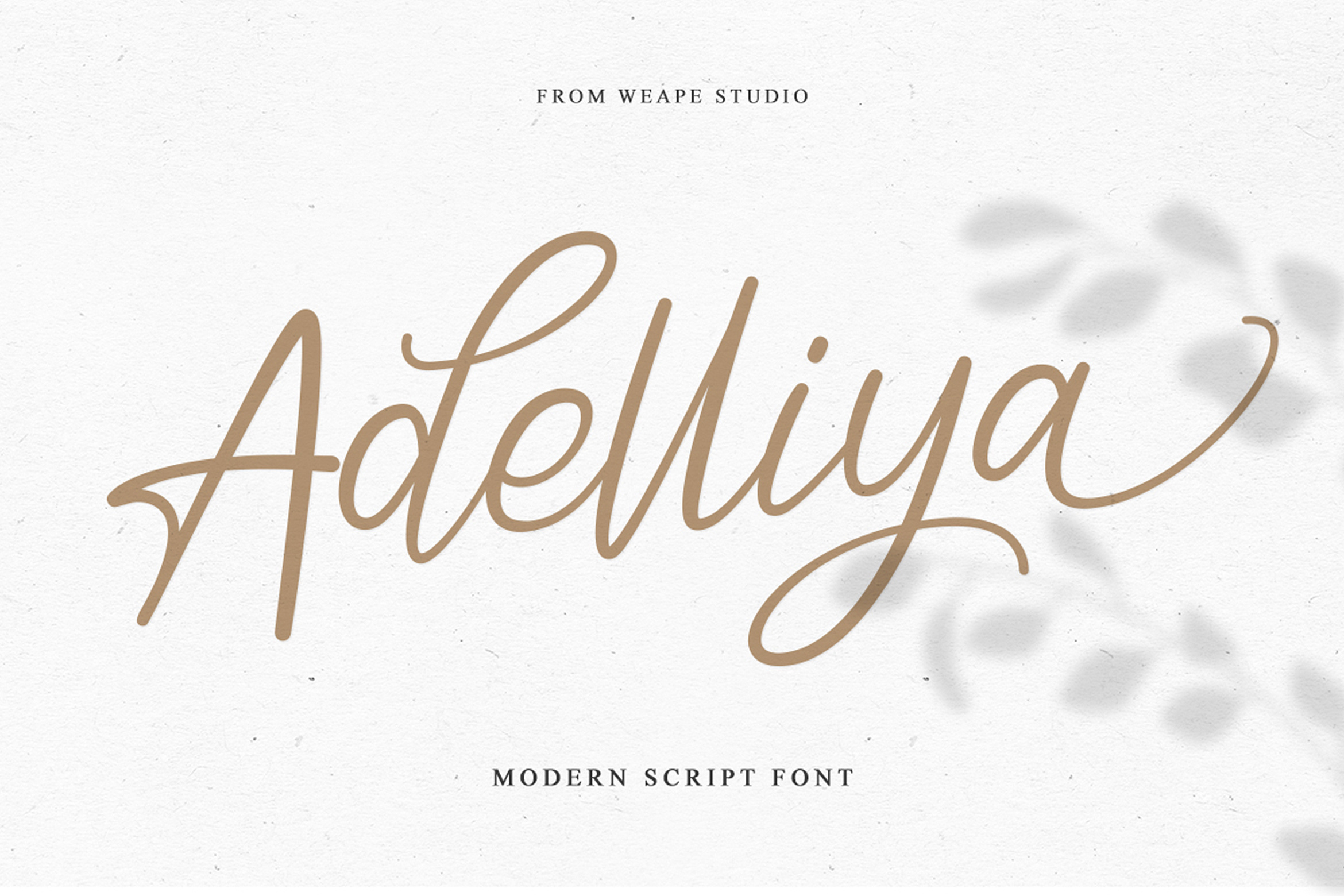
Adelliya Script Font
Introducing Adelliya modern script font.
A font with a touch of modern calligraphy are useful to beautify every sentence written. Adelliya is built with opentype features with additional much ligatures and swash at the end so it makes it look natural as written by hand.